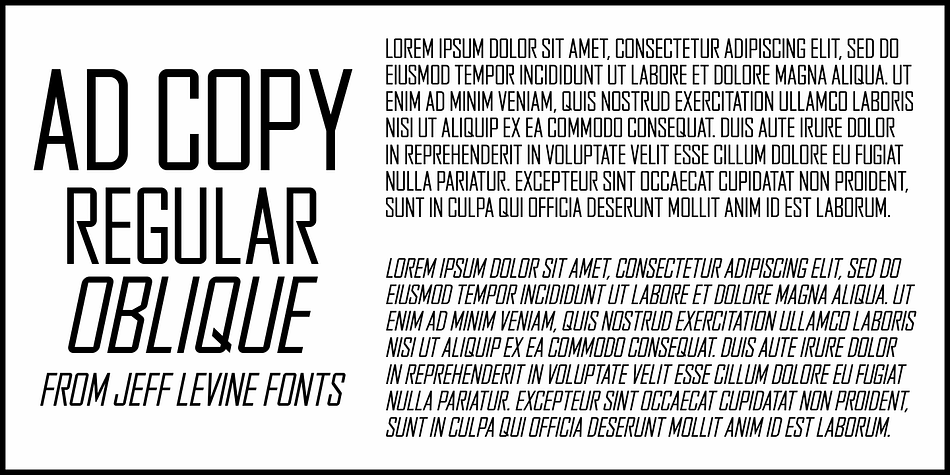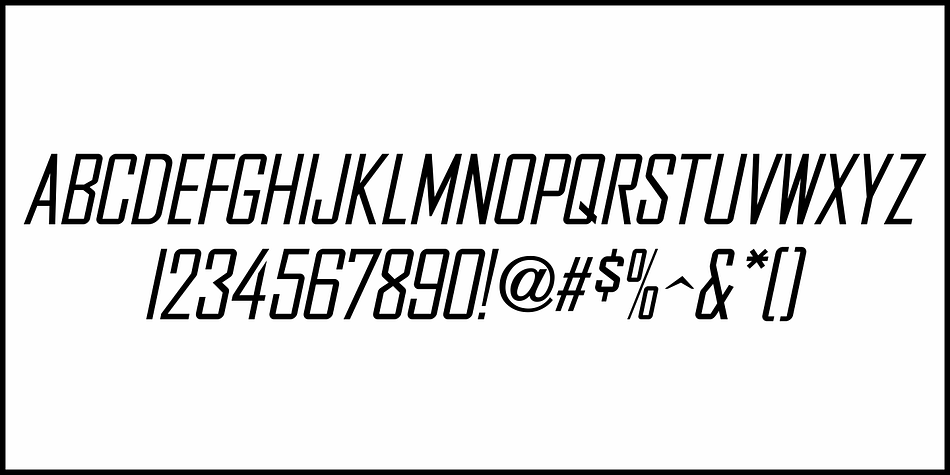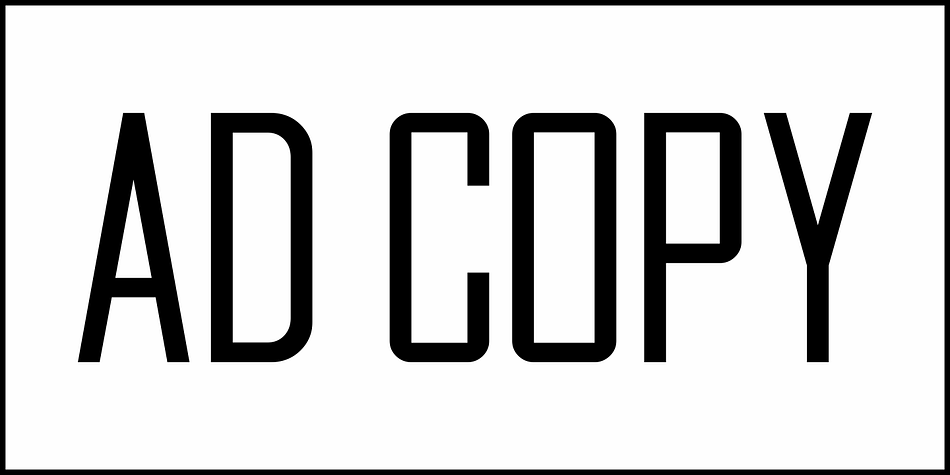
AD COPY JNL
Designed by Jeff Levine, Ad Copy JNL is a display sans font family. This typeface has two styles and was published by Jeff Levine Fonts.
As showcased in the 1934 ATF Book of American Types, Agency Gothic (originally designed by Morris Fuller Benton in 1932) is a squared, condensed sans serif face with rounded corners.
Most type afficionados are familiar with it’s counterpart, Agency Gothic Open which is an outline font with a drop shadow.
The solid version is now available from Jeff Levine Fonts as Ad Copy JNL in both regular and oblique versions.